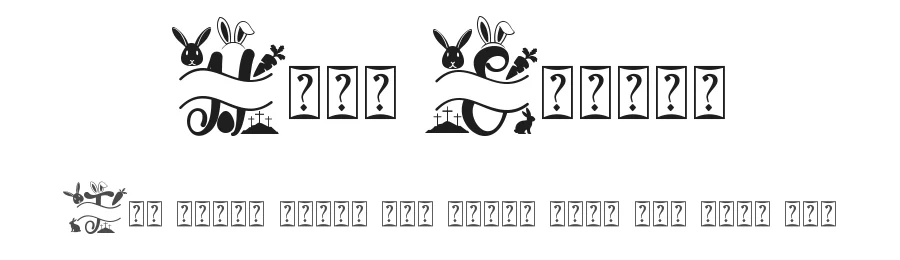
About Ini Budi Font
Ini Budi is a script & handwritten font designed by Angoes25. It includes 98 glyphs, a regular weight, and TTF (TrueType) format. Ini Budi is free to download; check the license details on this page before commercial use. Script & handwritten fonts like Ini Budi work best for wedding invitations, greeting cards, signatures, and elegant branding.
Ini Budi Font is a script font that shines as a display or heading face. Pair it with a clean sans-serif or serif font for body text β the contrast creates a clear hierarchy while the two styles stay balanced and easy to read.
Ini Budi Font
by Angoes25
Ini Budi Font is a script handwritten typeface by Angoes25, ideal for logos, invitations, branding, and creative projects.